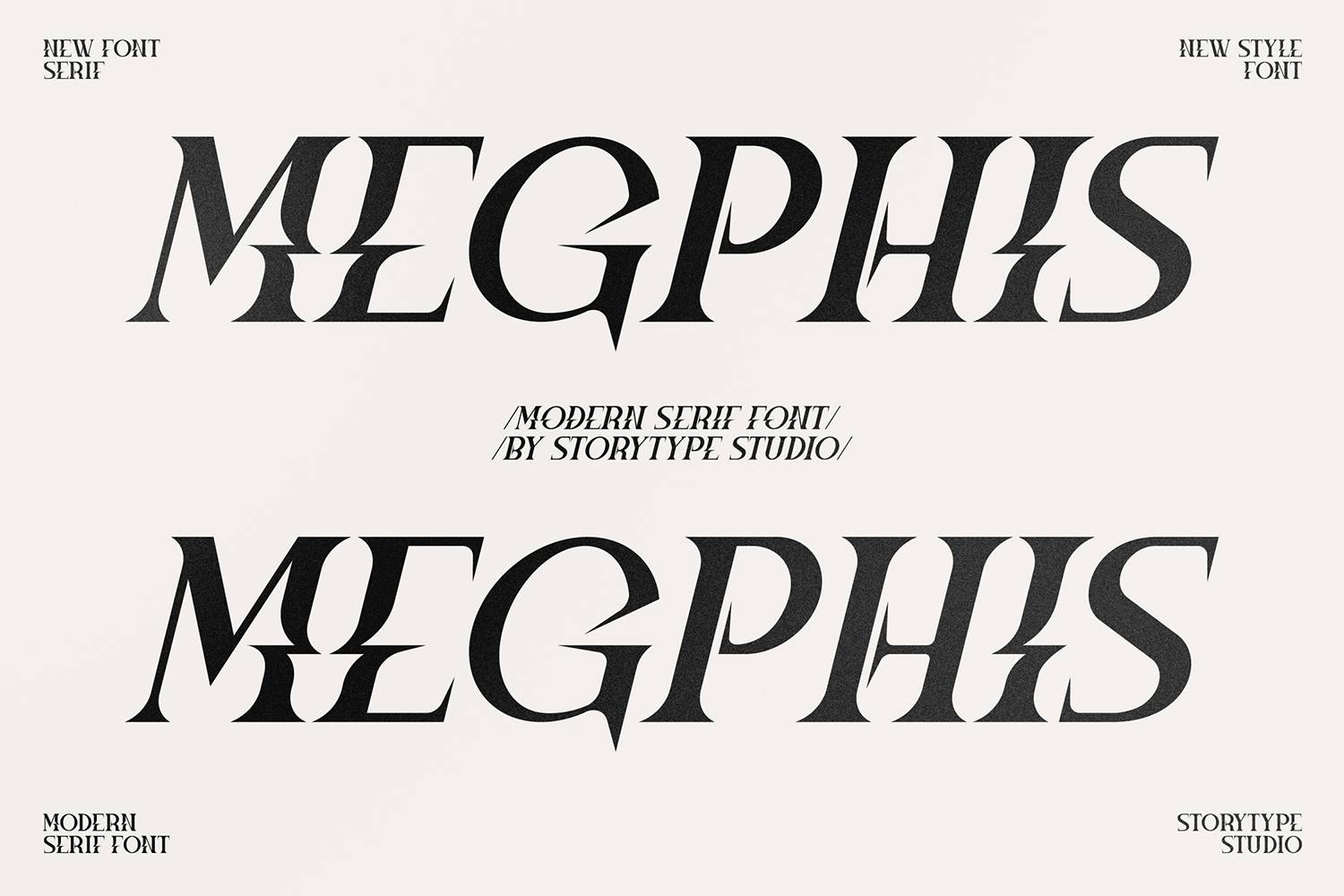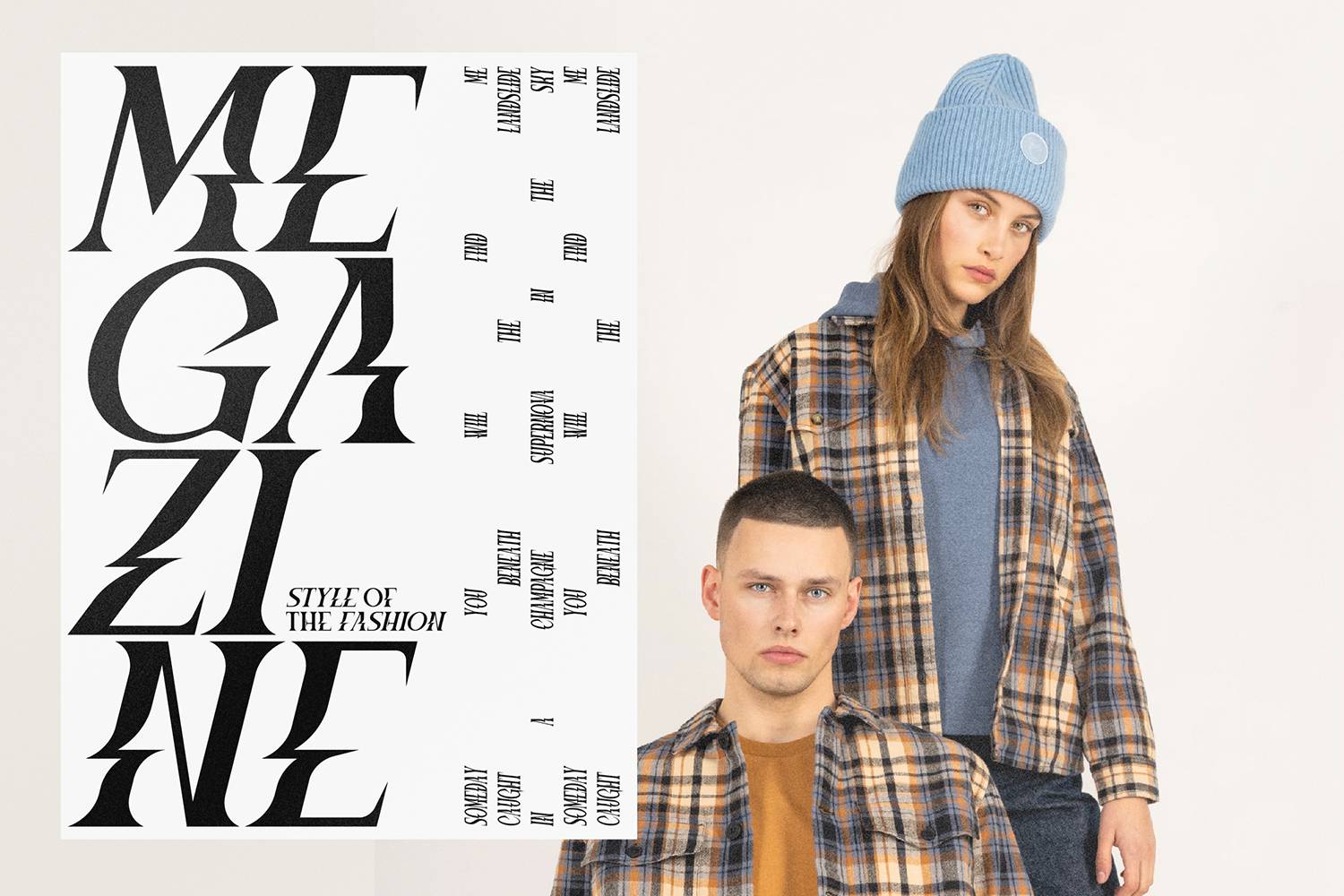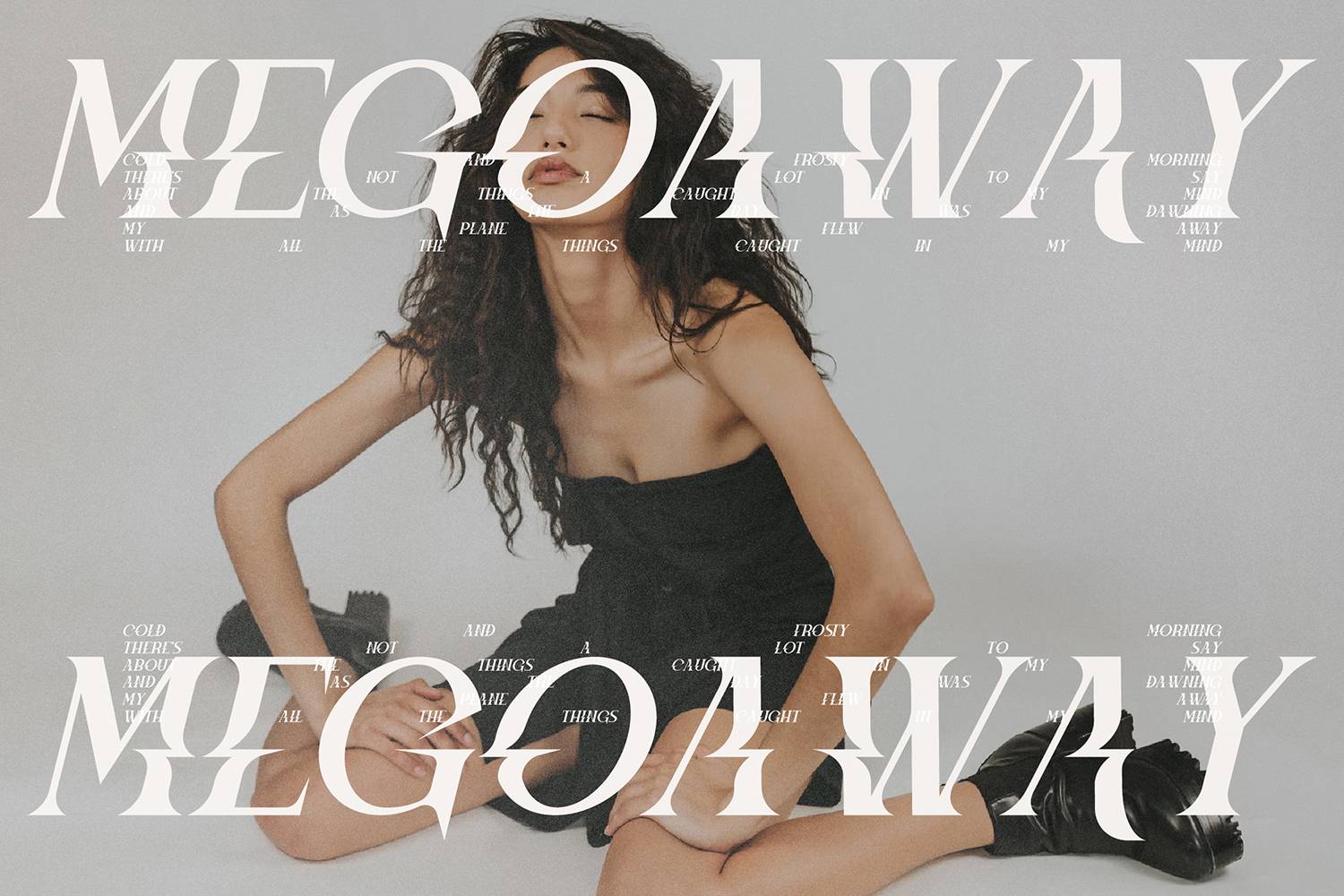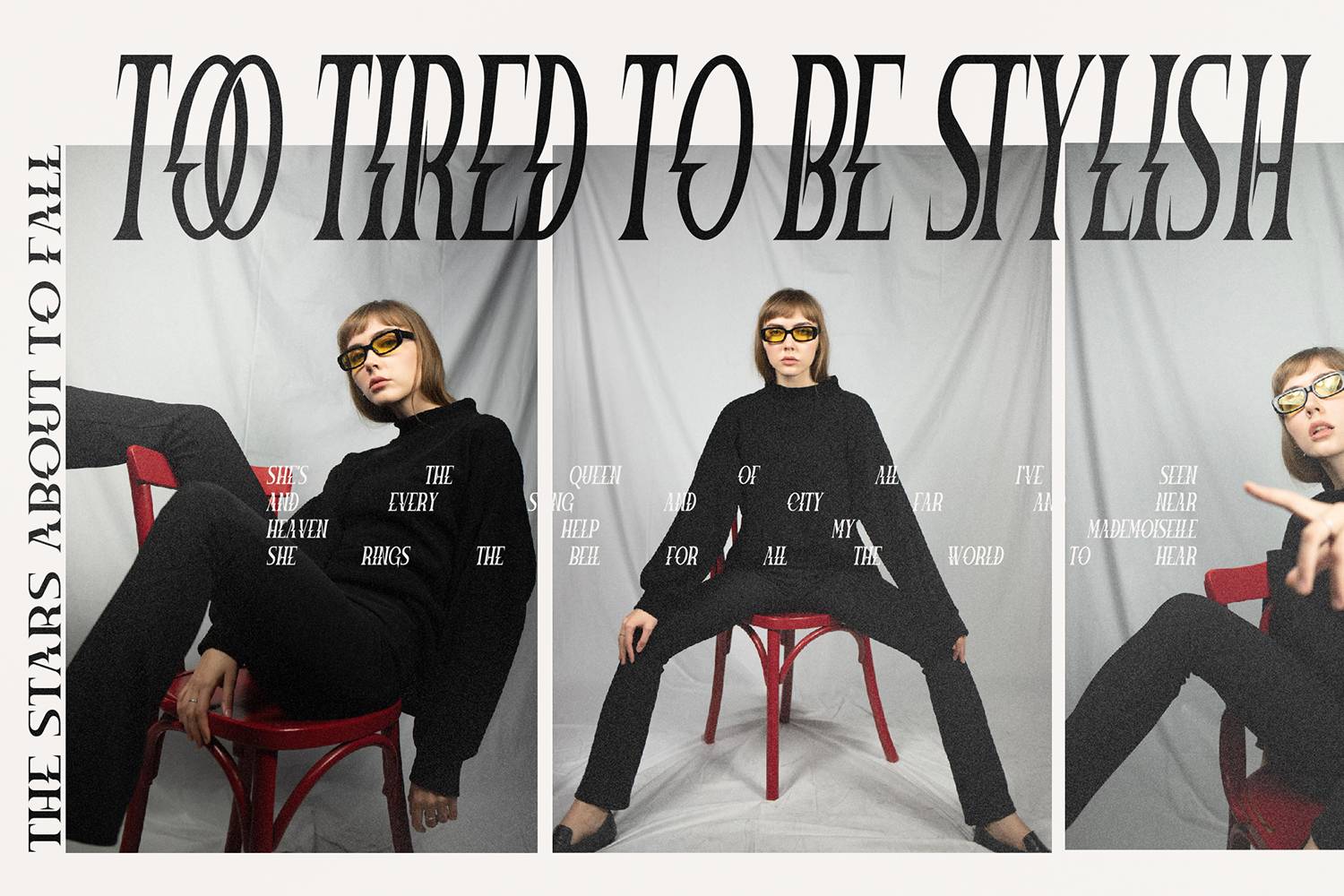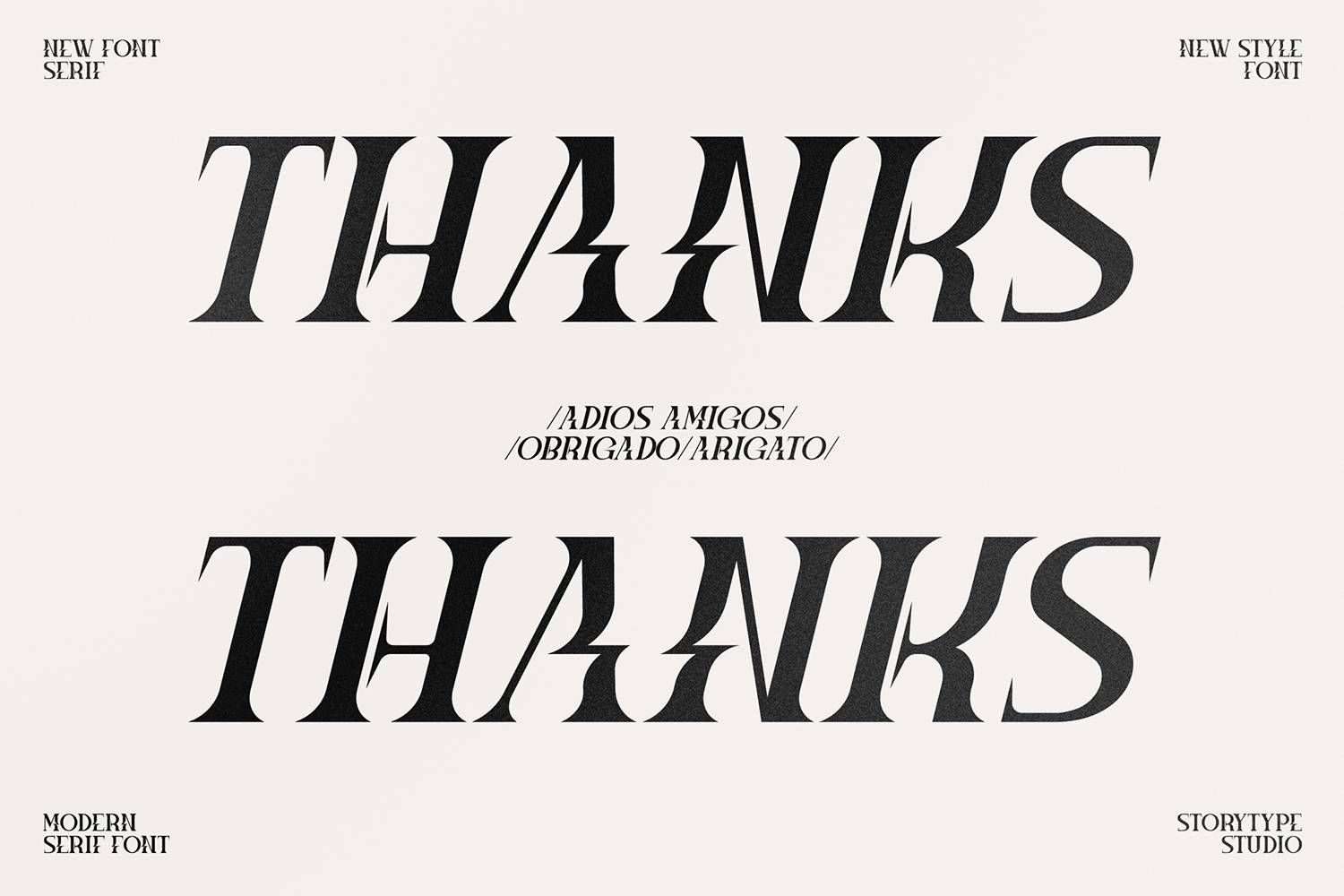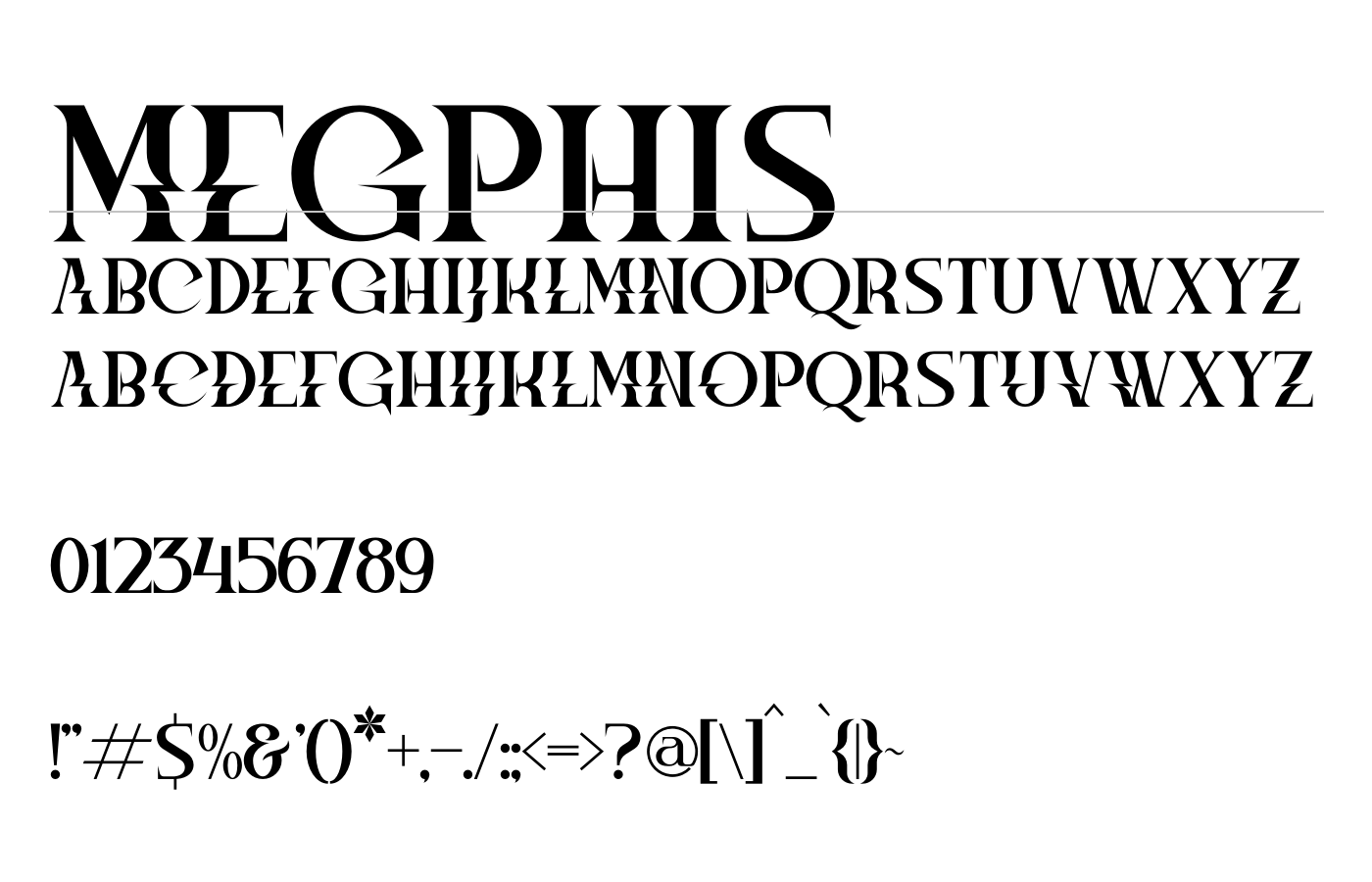
Megphis is a striking serif font that combines high contrast strokes with sharp, elegant serifs to create a luxurious and sophisticated appearance. Its unique letterforms, featuring stylized, almost calligraphic details and a high x-height, make it ideal for bold headlines, editorial design, and upscale branding where a dramatic, artistic flair is desired. This font works beautifully in fashion, luxury, and creative industries that want to communicate elegance with a modern twist.
Megphis Font
About Megphis Font